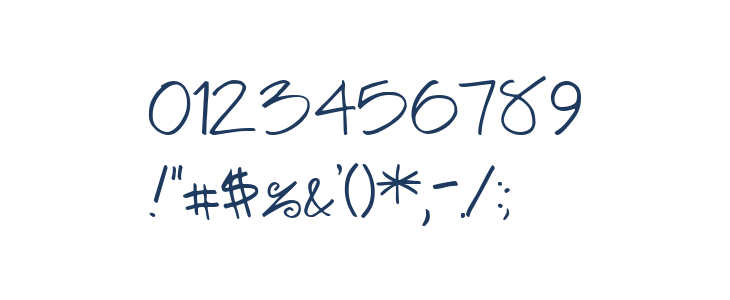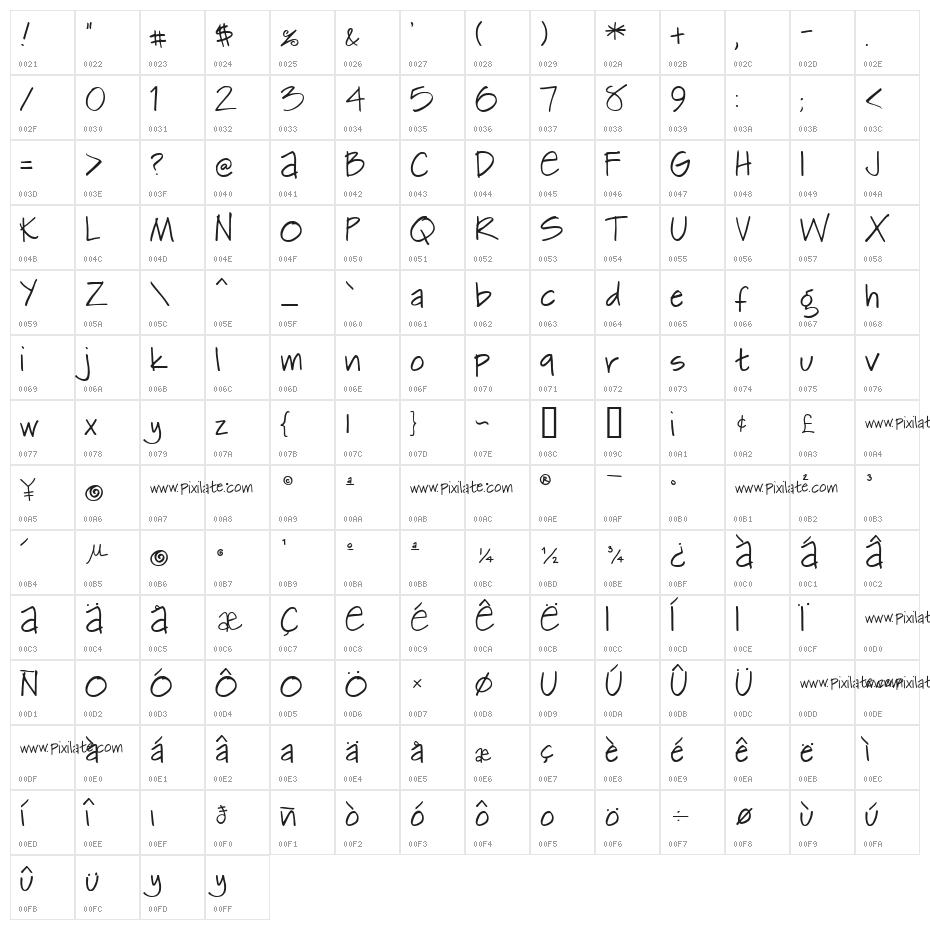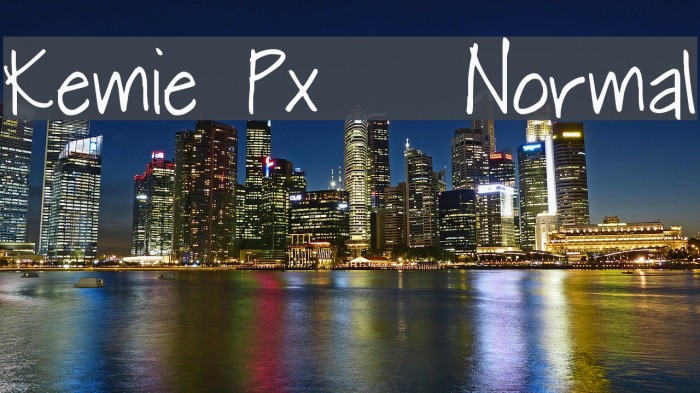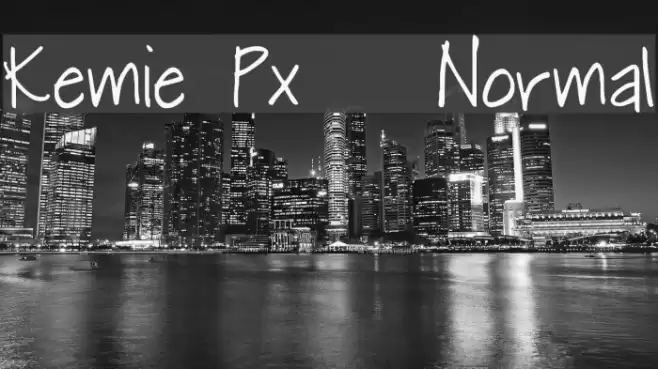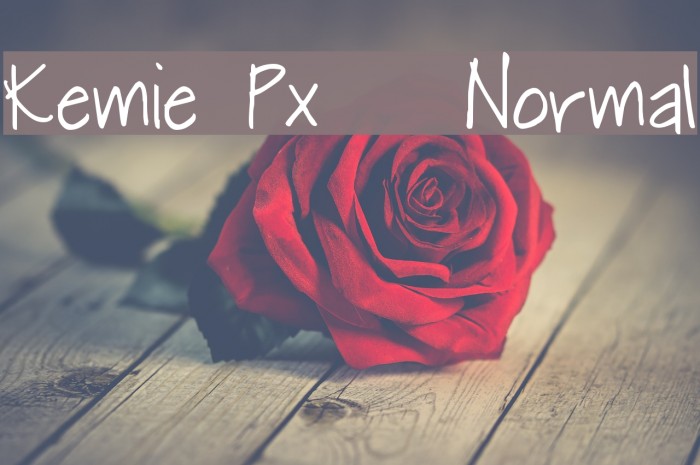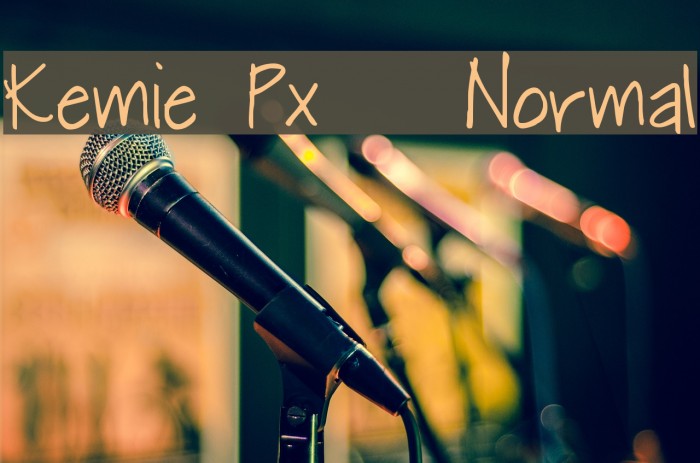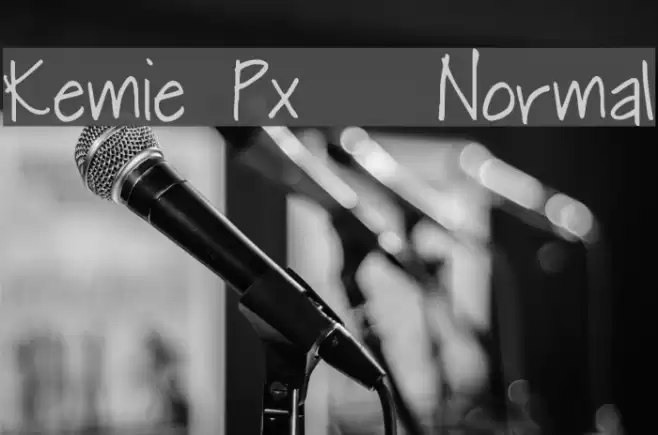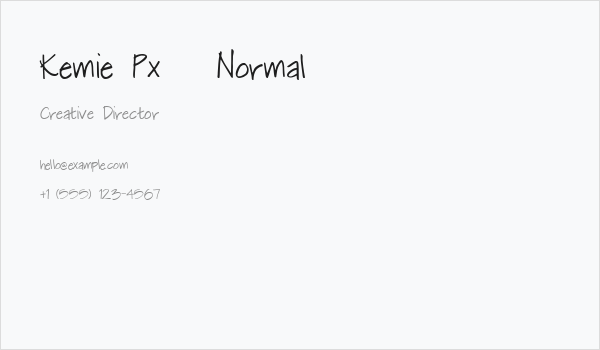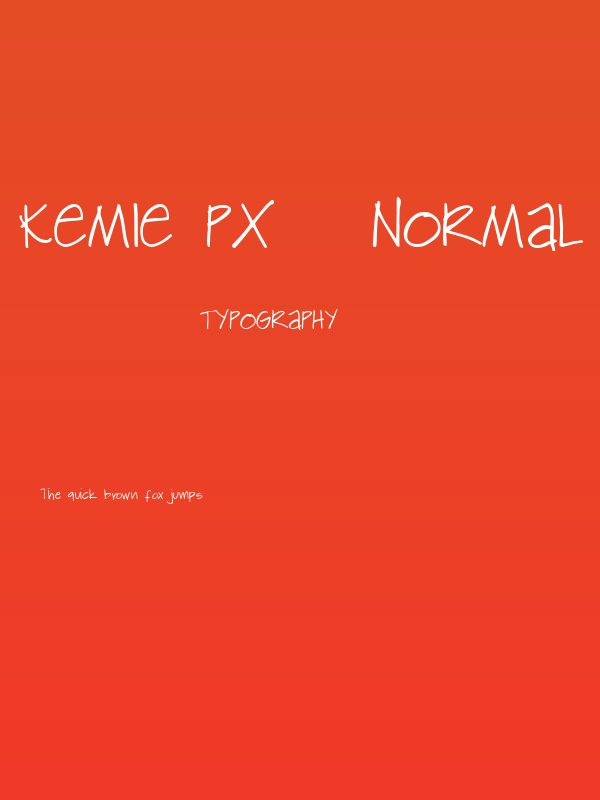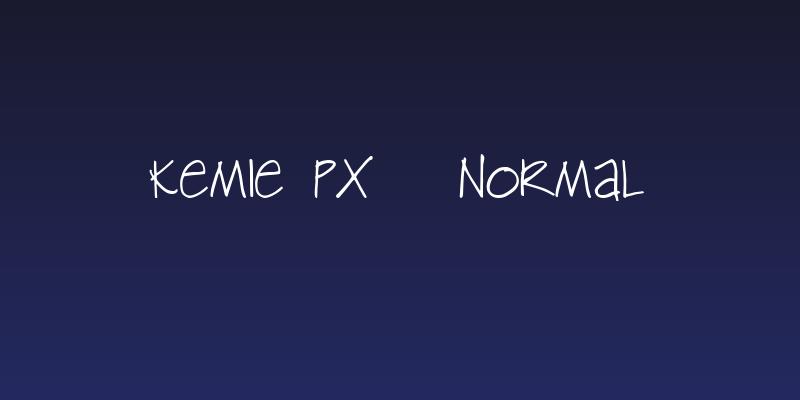
Kemie Px Normal Font
Kemie Px Normal Description
This font features a playful and casual handwritten style, characterized by its smooth, flowing lines and slightly irregular shapes. The letters have a natural, organic feel, with varying stroke widths that add to its informal charm. The uppercase and lowercase characters maintain a consistent style, with rounded edges and a slight slant that gives the text a dynamic appearance. The numerals and special characters are designed to match the overall aesthetic, ensuring a cohesive look across all text elements. This font is well-suited for projects that require a personal touch or a relaxed, friendly vibe.
| Use Case | Headlines, Informal text, Personal projects |
| Proposed Projects | Ideal for greeting cards, invitations, personal branding, and social media graphics. |